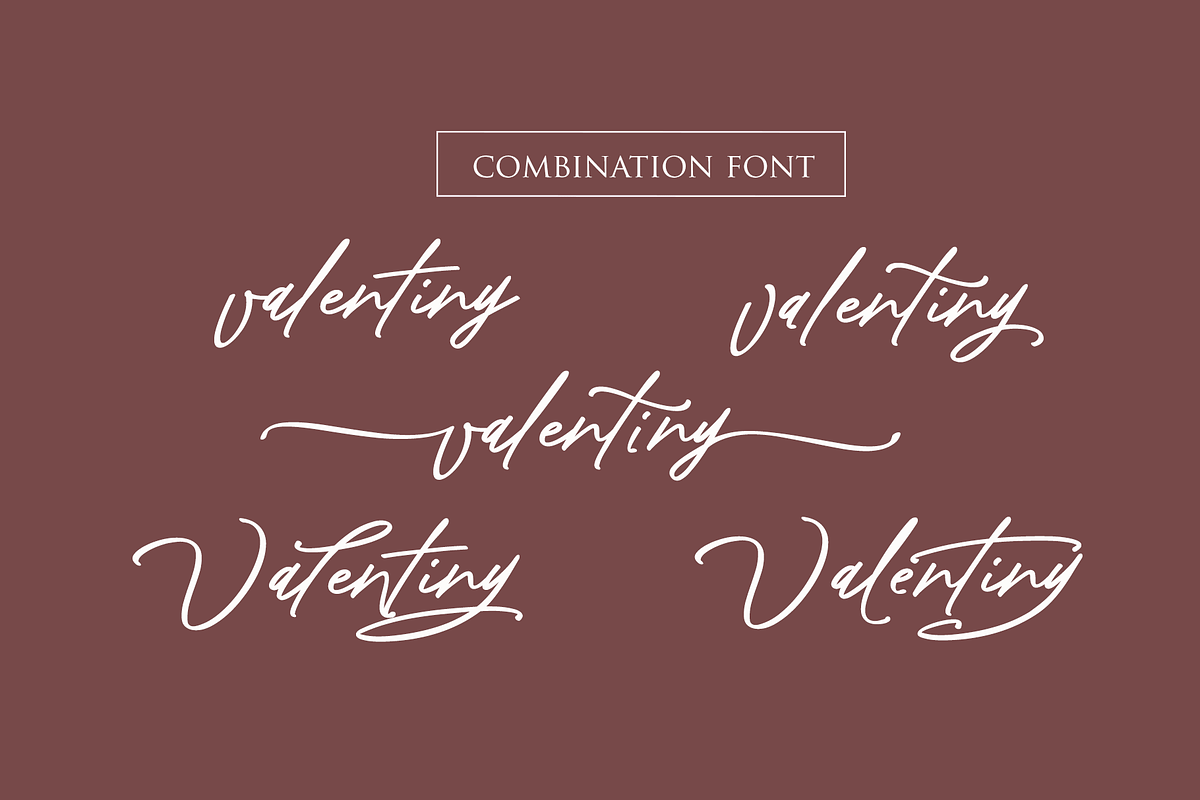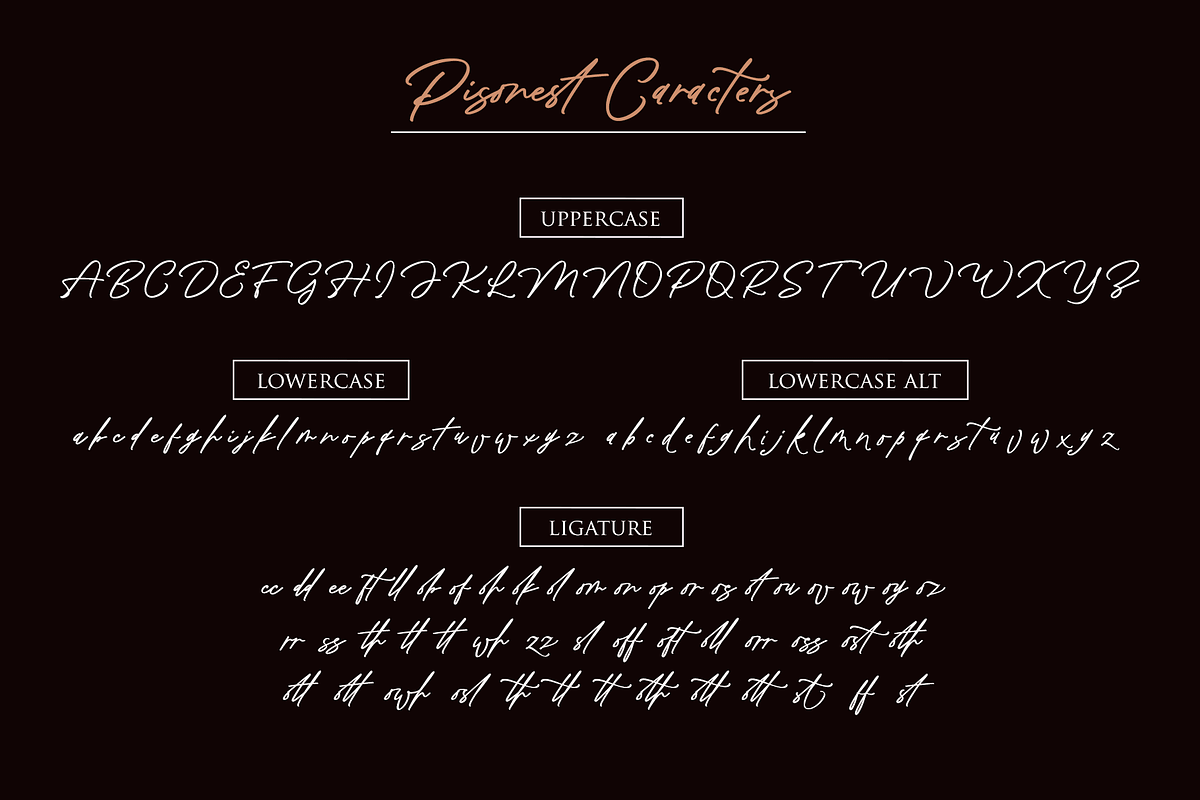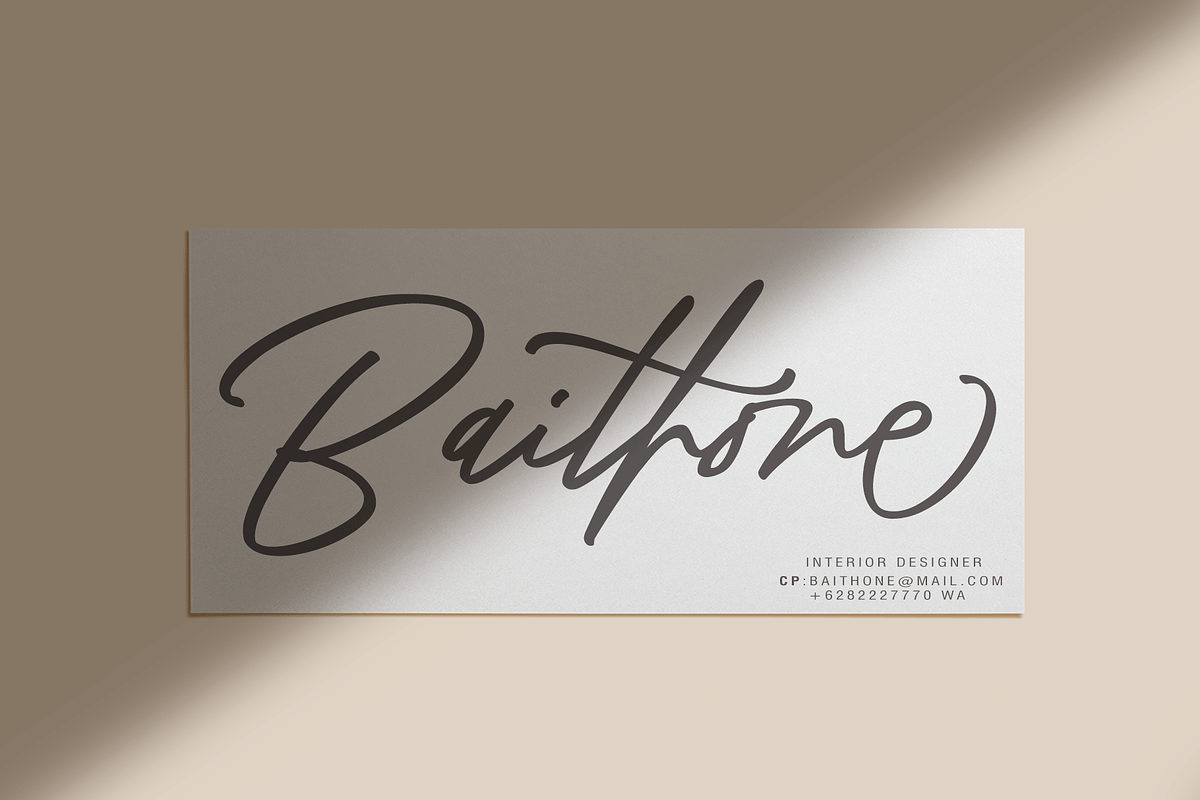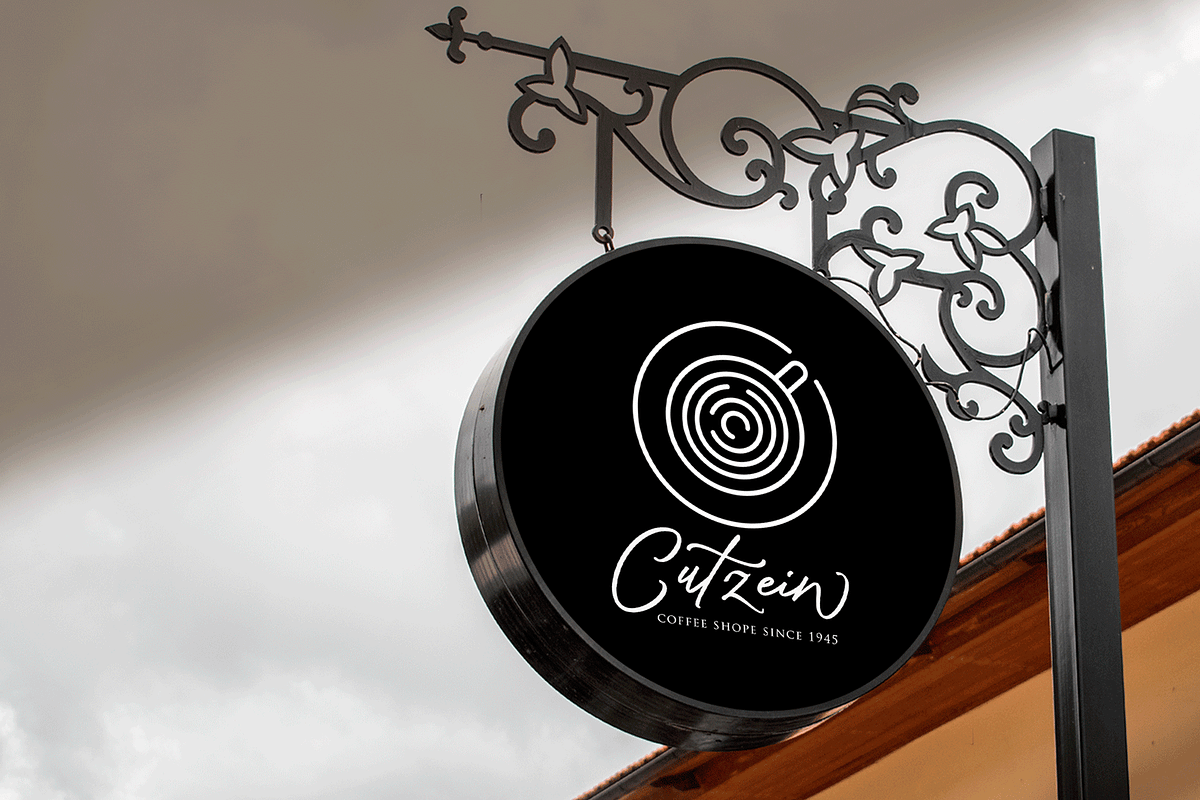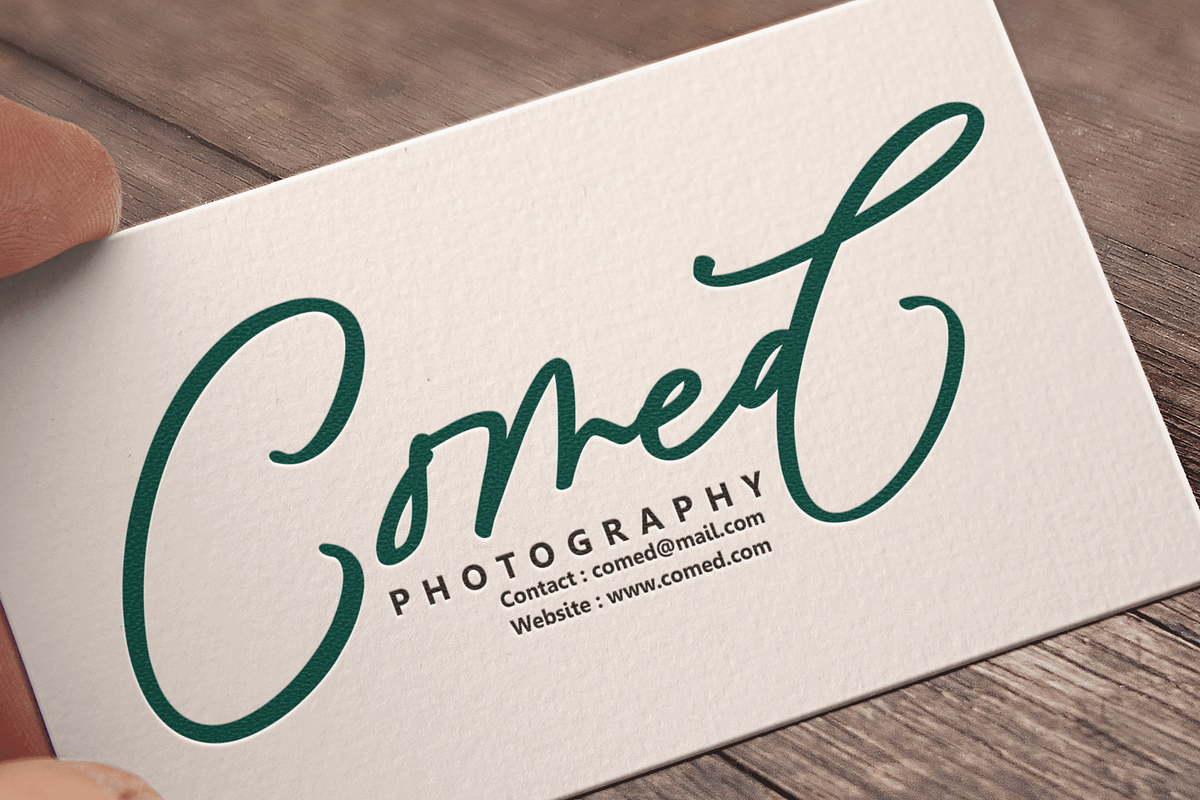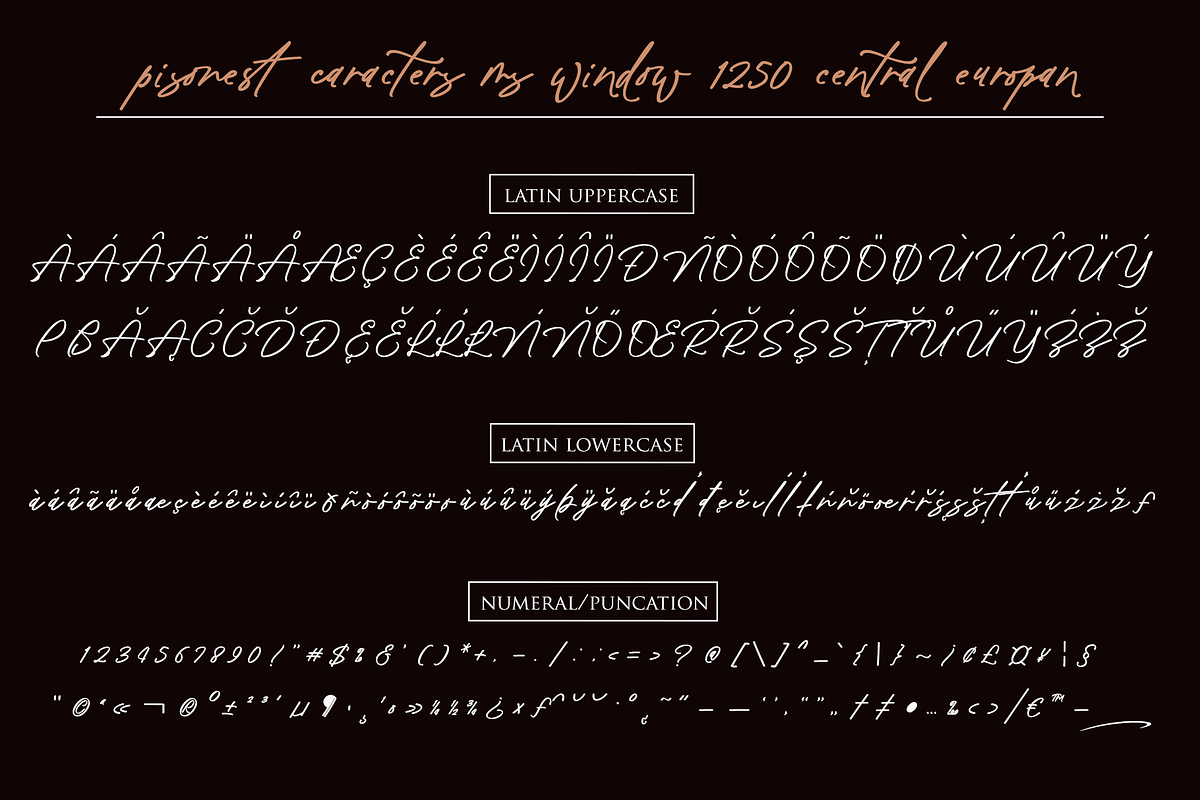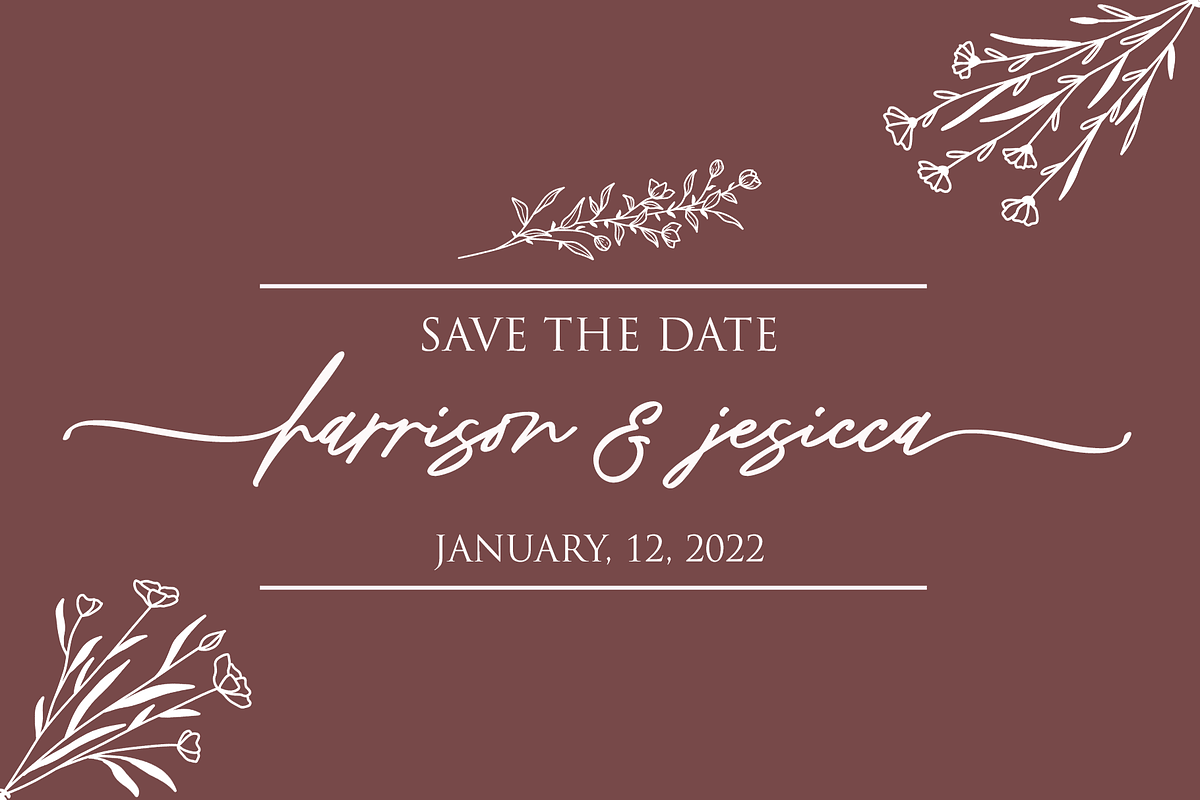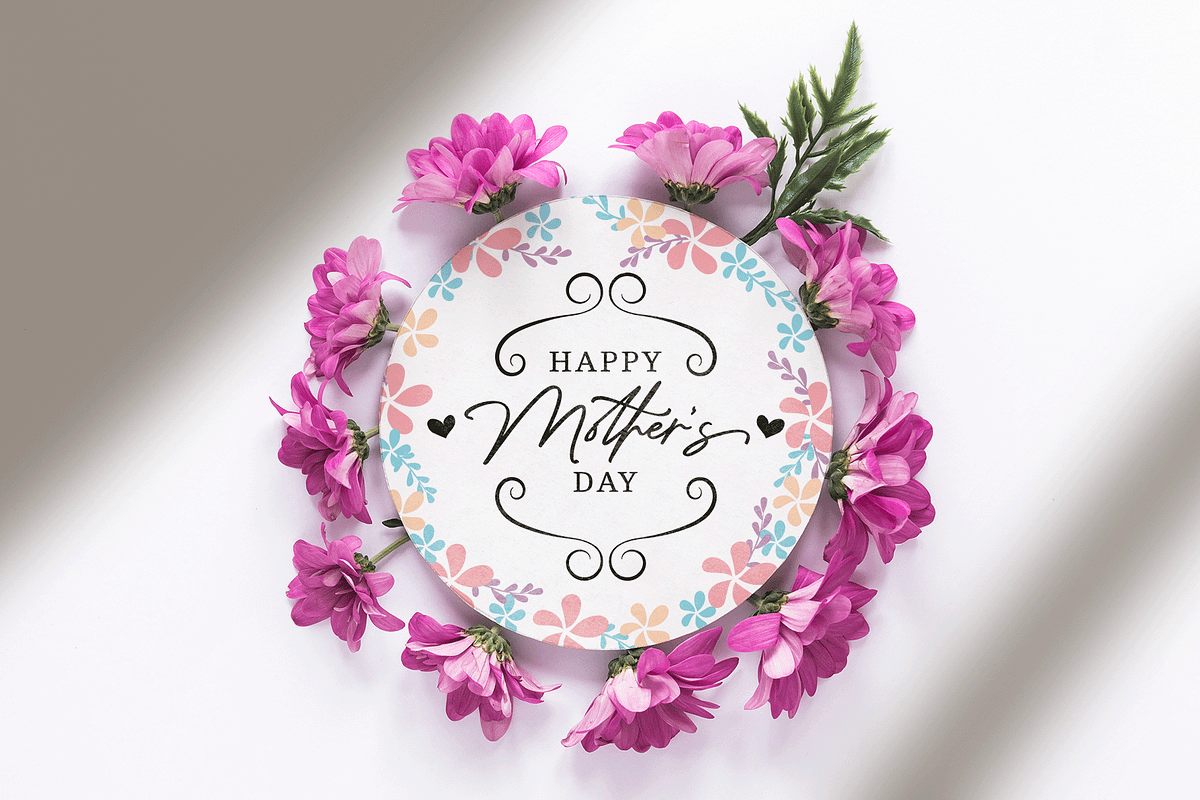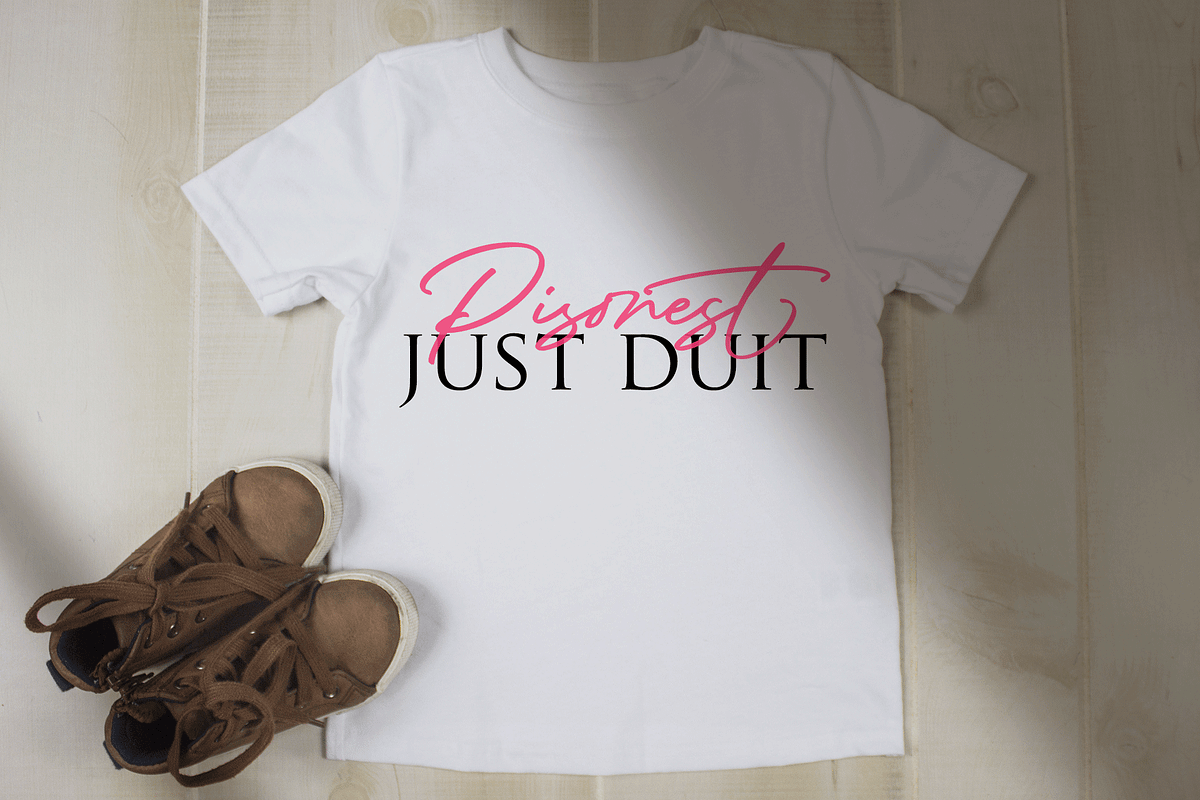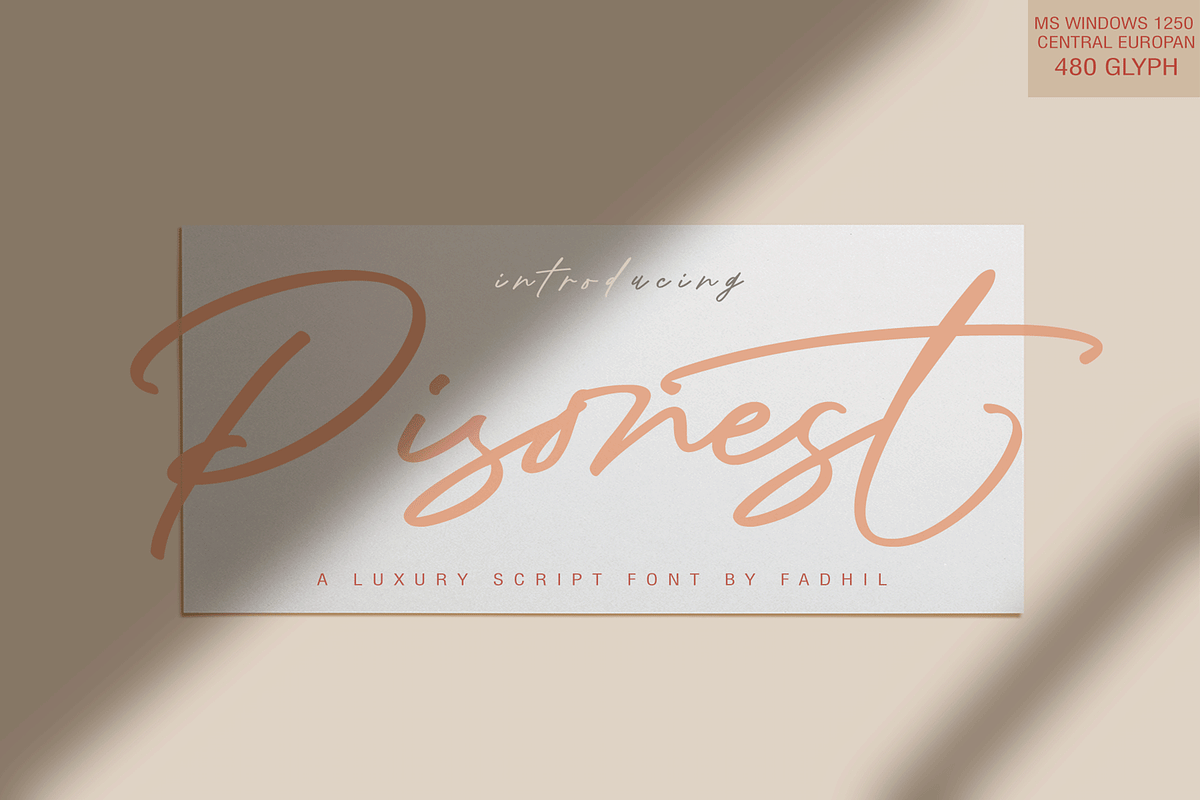
Pisonest (Glyph Central Europan)
PISONEST (MS WINDOWS 1250 CENTRAL EUROPAN 480 GLYPH) is another lovely modern calligraphy typefaces, which is combining the style of classic calligraphy with an modern style. combines from copperplate to contemporary typeface with a dancing baseline, modern and elegant touch. including initial and terminal letters, alternates, and ligatures.
Can be used for various purposes.such as headings, logos, wedding invitation, t-shirt, letterhead, signage, lable, news, posters, badges etc.